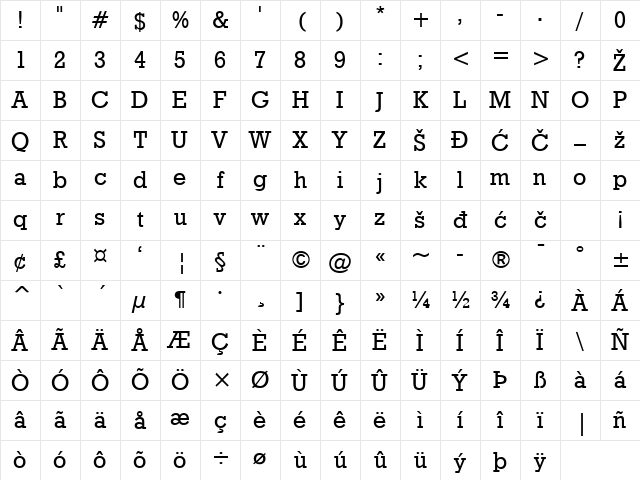
GeoSlab Regular Free Font
Design Context for GeoSlab
GeoSlab features prominent, blocky serifs that give it a confident, grounded presence - equally at home in editorial settings and bold branding work.
Pro Tip: Use GeoSlab for headlines and subheadings where its slab serifs can make an impression. It also holds up well in mid-size body copy thanks to its sturdy construction.